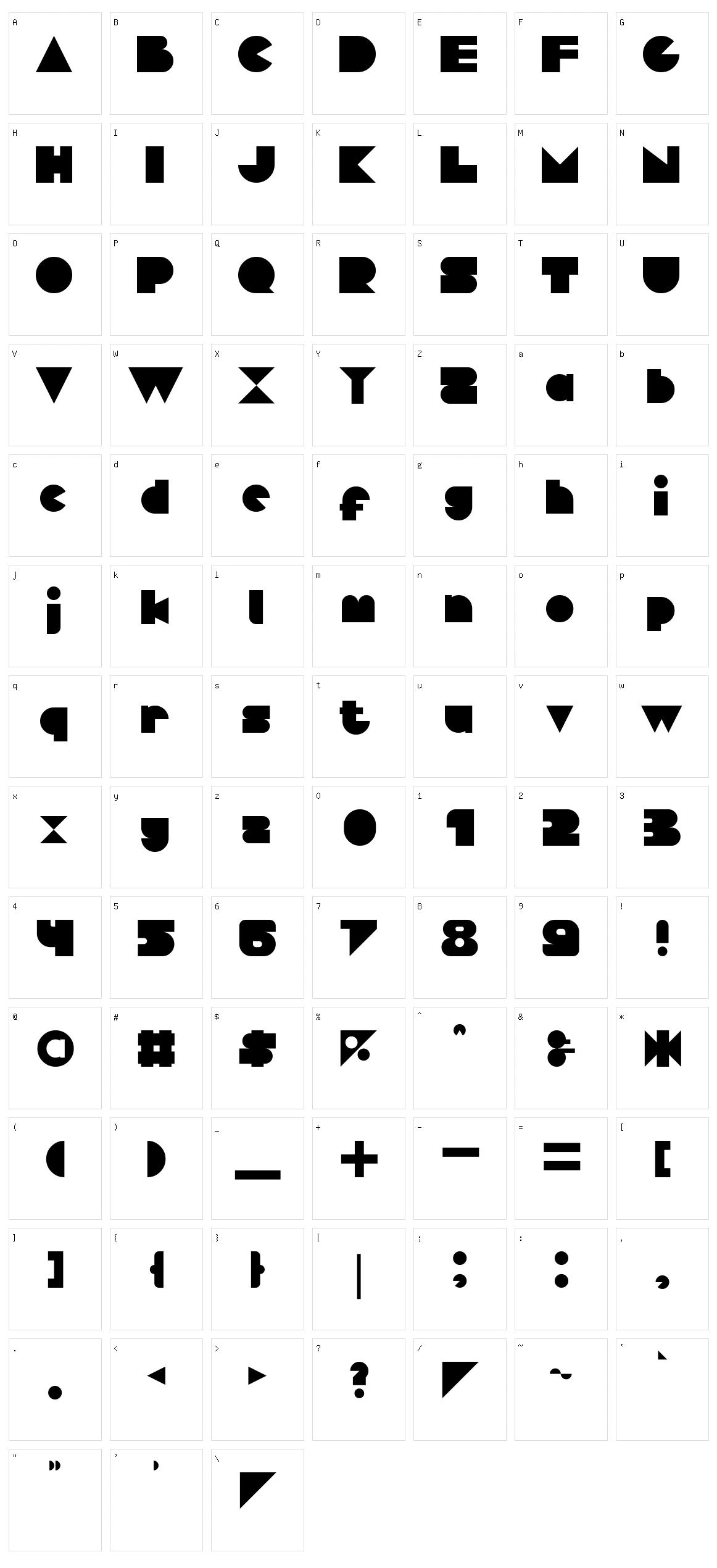
The free font Dagelan Malam is carefully designed by Afiq Anggriawan, showcasing a thoughtful balance of creativity and usability and falls under the Groovy font style. When you download the ZIP file, it contains only 20.13 KB of font files, making it lightweight and quick to download. Please review the license details below to understand permitted usage and distribution rights. If license information is not available, we recommend using this font for personal projects only or contacting the author directly for commercial usage permissions.